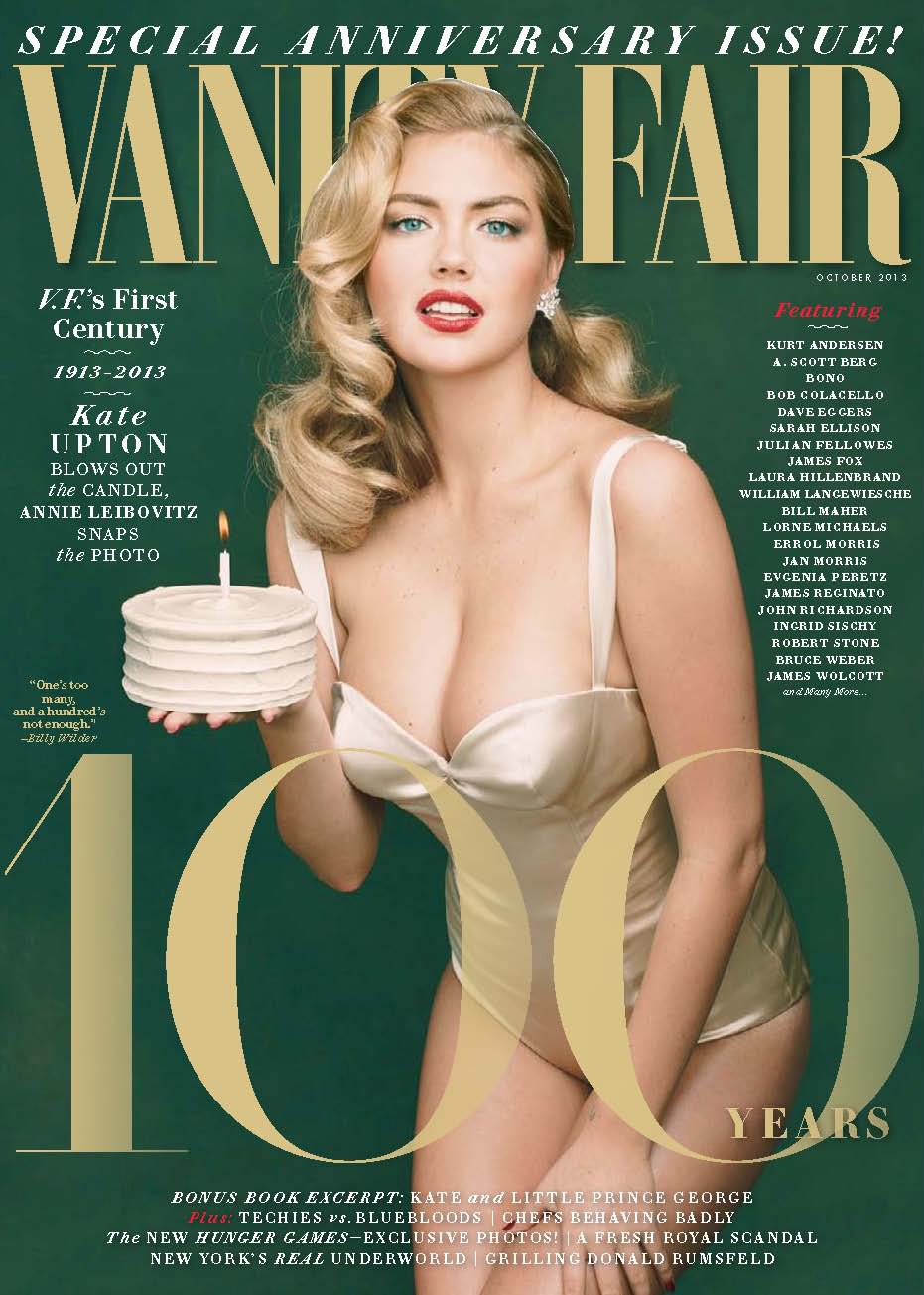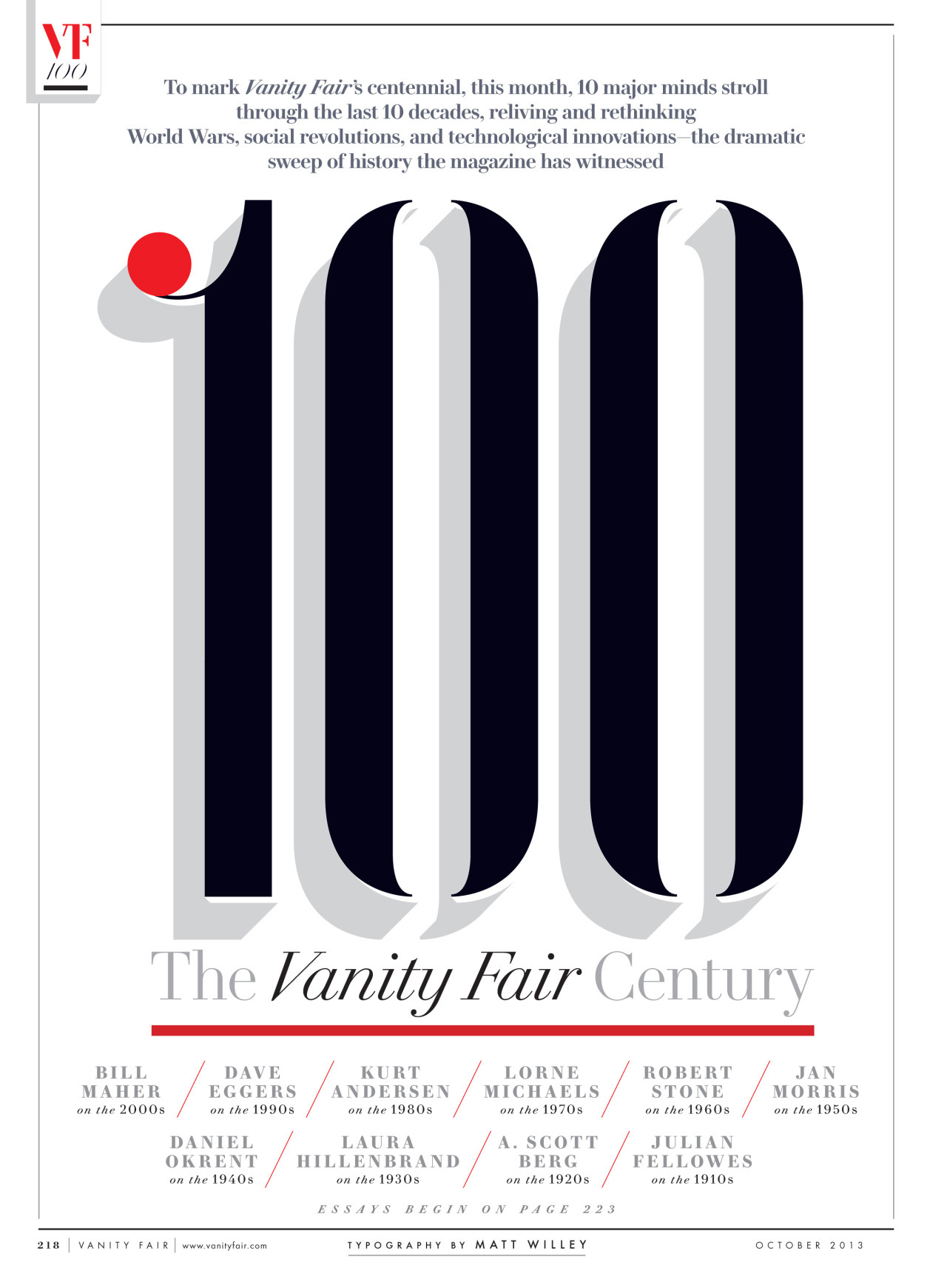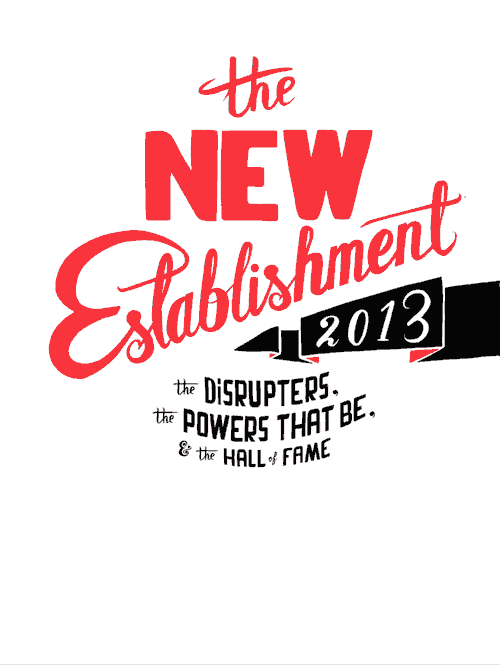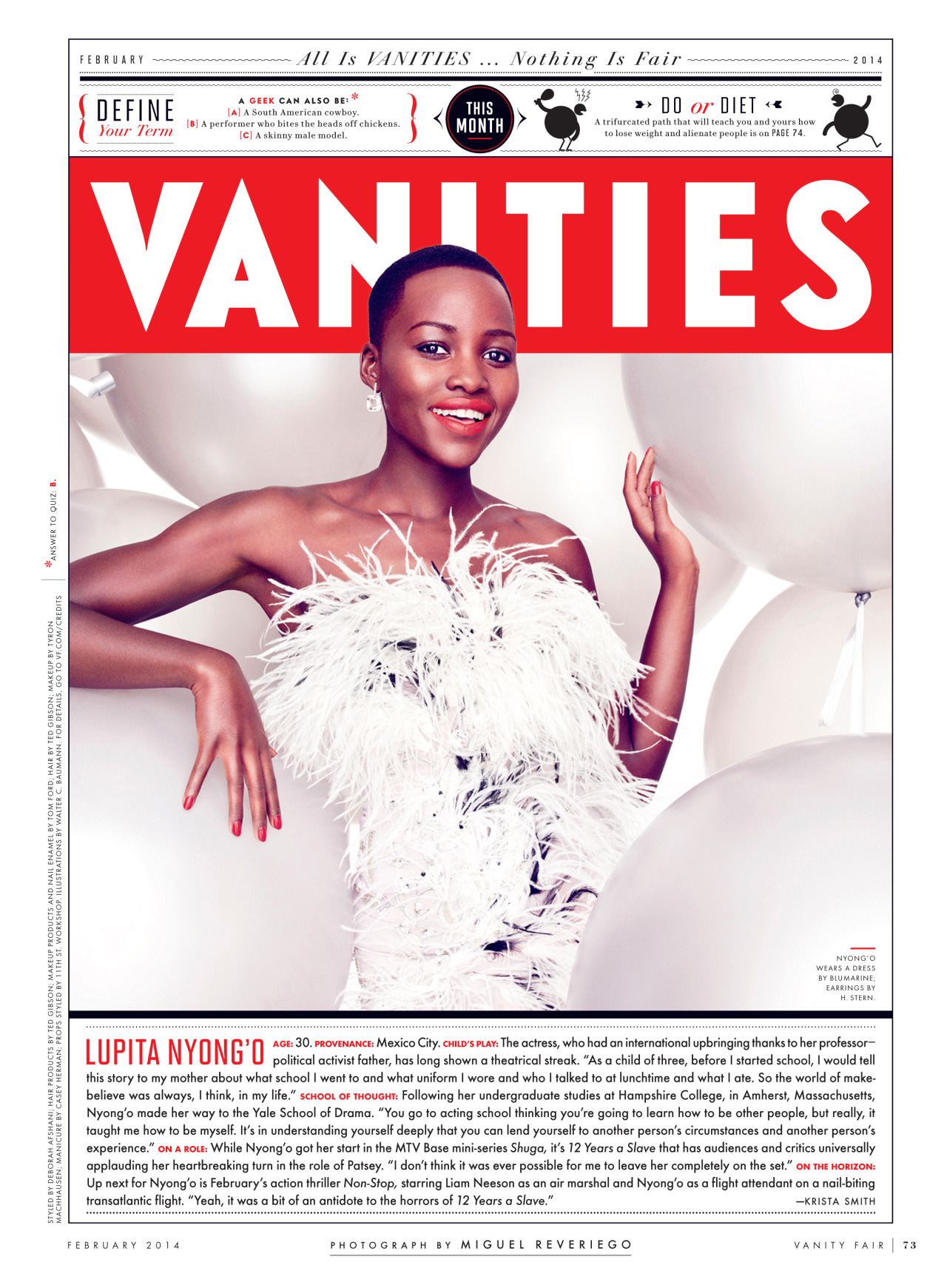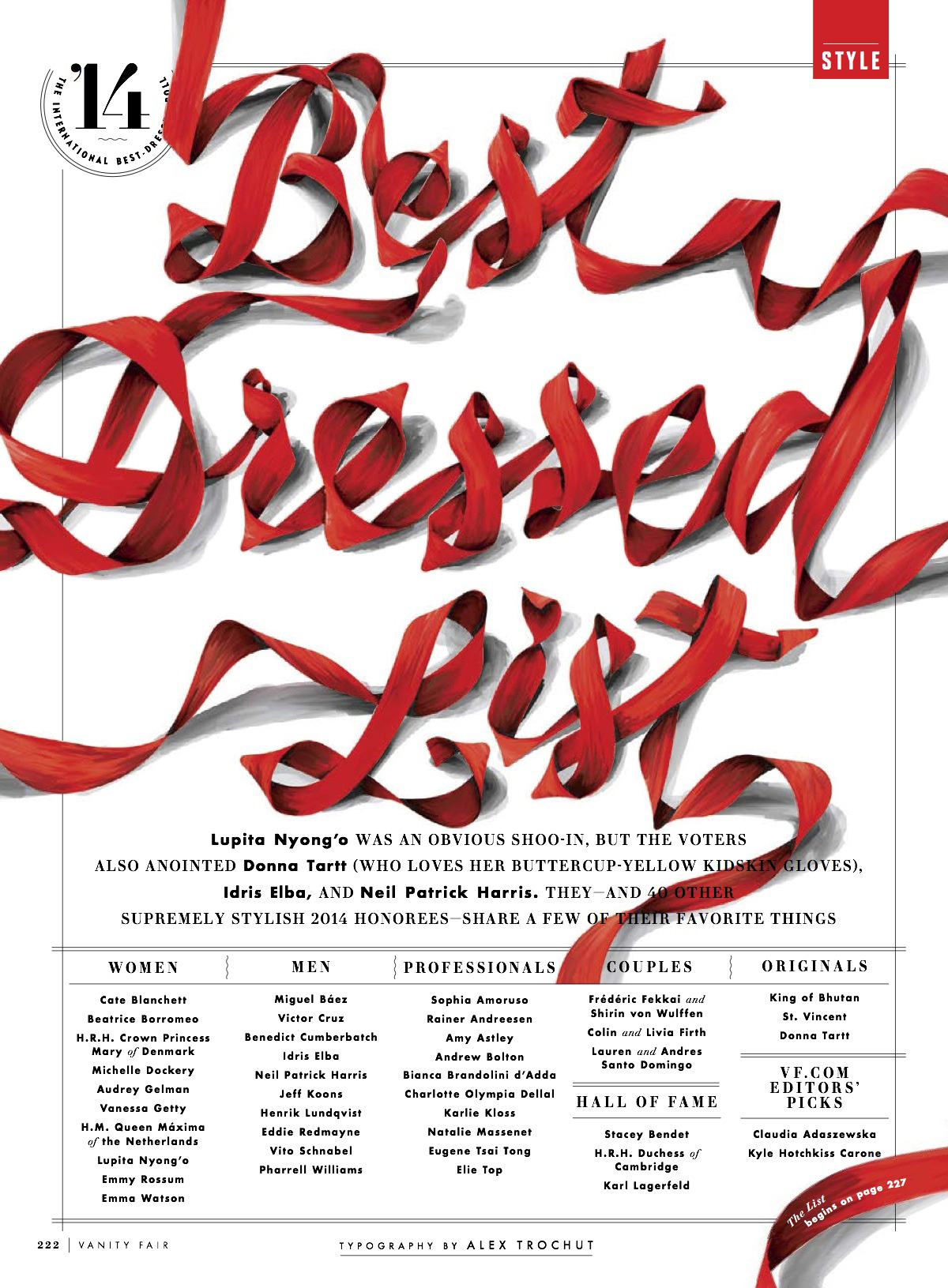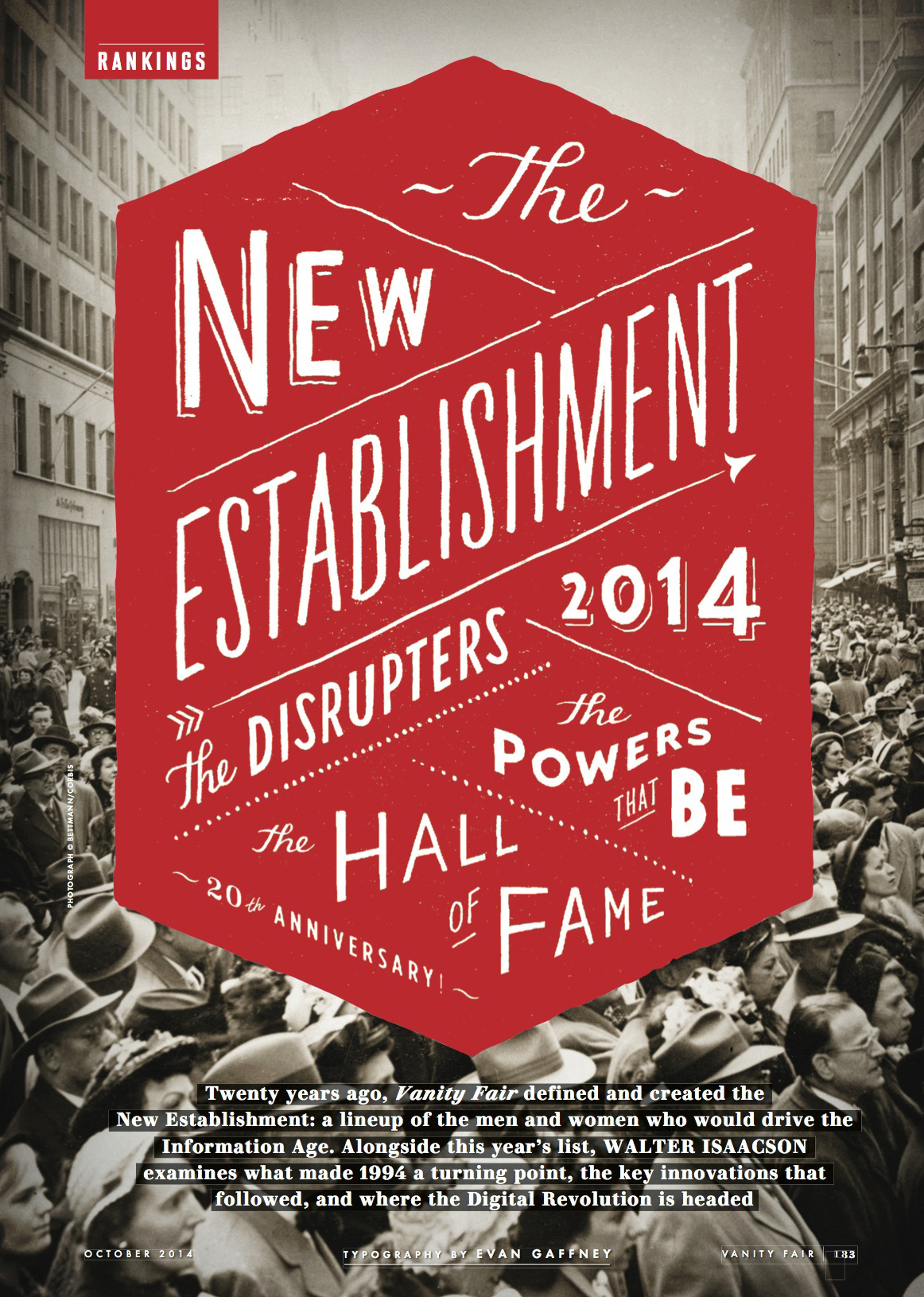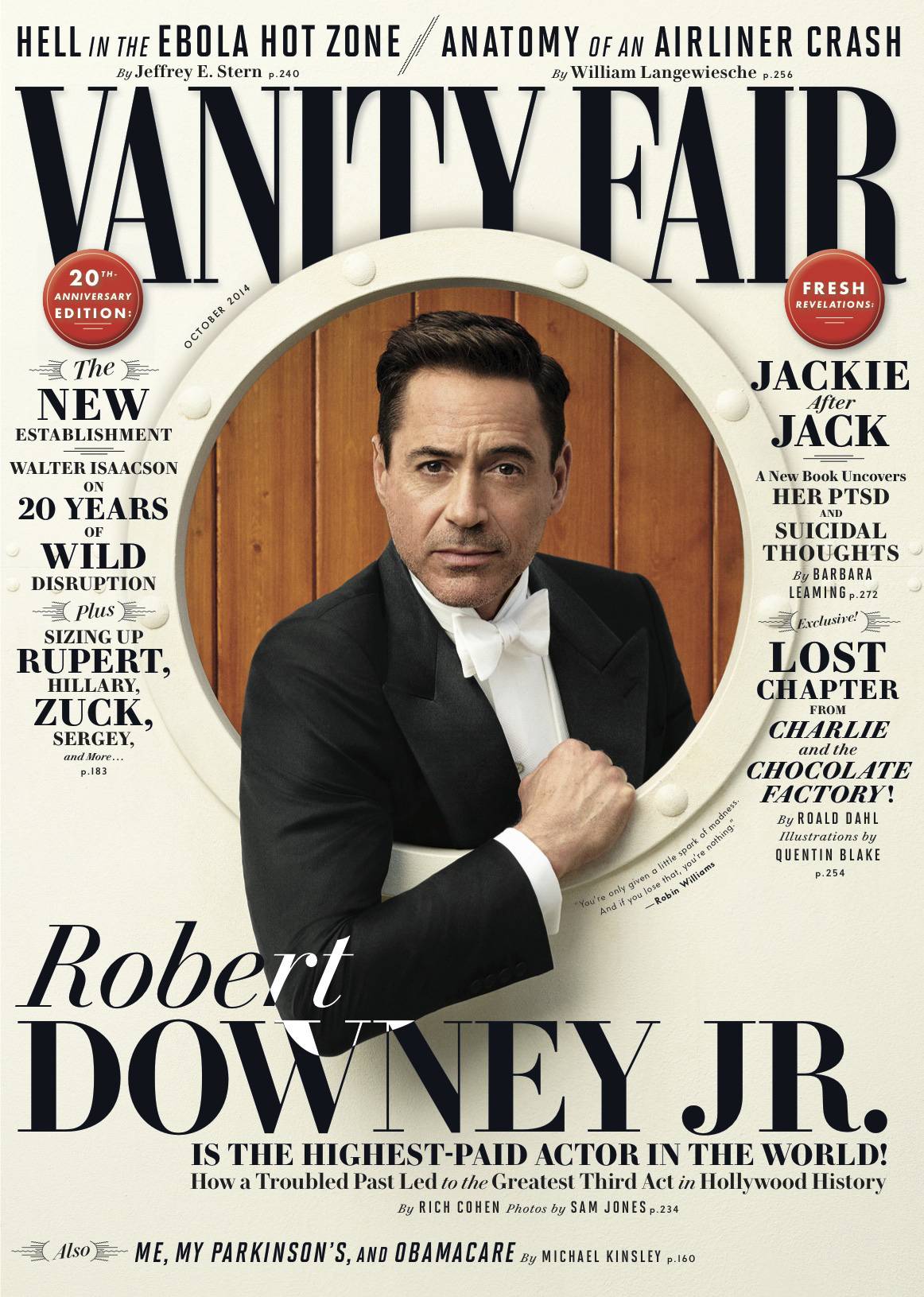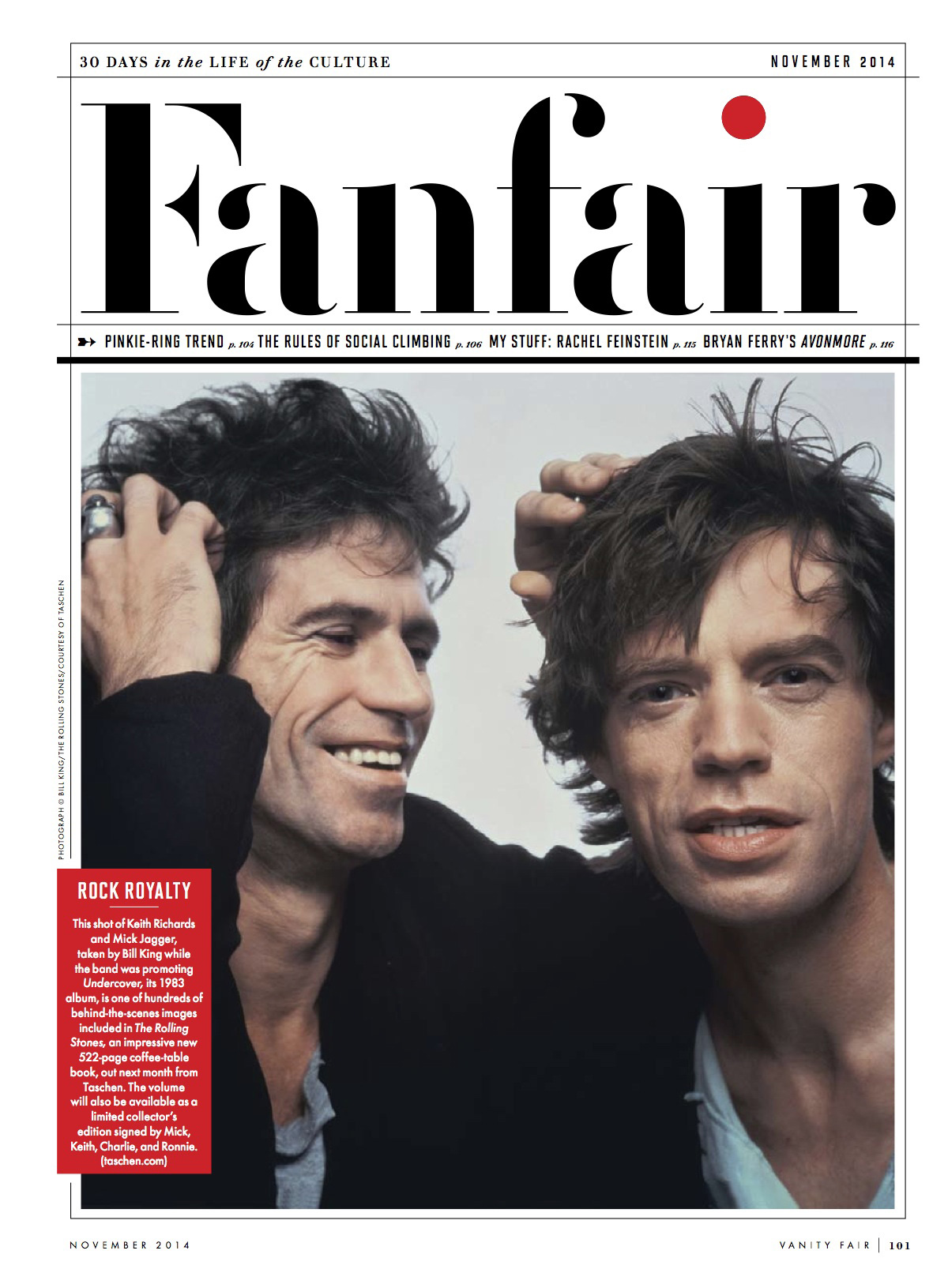
How Chris Dixon became the most iconic designer of his generation
When Chris Dixon arrived at Vanity Fair in 2011 from New York Magazine he began reworking the typography, page design, illustrations, infographics, and photography to evolve the iconic publication section after section, page after page. Having started his collaboration with Christian Schwartz and Paul Barnes of Commercial Type on a six-month process to redesign Vanity Fair’s logo and create a new custom display typeface back in 2012, Dixon approved a fresh interpretation of Didot for the prestigious magazine in 2013.
Born 1967 in Saskatchewan, Canada Dixon studied psychology at the University of Saskatchewan but when he took part-time art and design classes he “discovered what graphic design really was”. Having accepted into Vancouver’s Emily Carr Institute of Art & Design for a three-year program in 1997 it was his graduate project that caught the eye of visiting teacher Kalle Lasn, founder of Adbusters who offered him a job as an art director. This is how it all started.
“I’m typographically led. For me, to solve a problem or make the thing special it’s the typography.”
A graphic designer by heart, Chris Dixon has spent more than 17 years designing at a wide variety of publications and companies, including the Financial Times, the New York Times Magazine, Ogilvy & Mather, as well as eight years at New York magazine where he helped execute of the most highly-regarded magazine redesigns in recent years the Design Director at Vanity Fair since 2011, has evolved the magazine’s overall look with a very contemporary yet classic in its typographic elements refined design with poster-like covers and well-crafted and detailed, but still bold and muscular typography. Here we present you with some quotes of his typographic wisdom for a very compelling adventure in the land of the letter.
“My brother is a film director and I sometimes liken art direction to film directing. They start with a script, basically just words on white paper, and they read it and start to imagine and visualise it. You can do it a thousand different ways – if you take the same script to different directors they’re going to visualise it in very different ways. In editorial design we do a similar thing. You read a manuscript and it’s got a certain mood to it, a certain tone, and we work to communicate that. You can pull out certain words in the headline, or reduce the headline down to one word alongside a photograph and you get a tension between word and image.”
“I’m typographically led. For me, to solve a problem or make the thing special it’s the typography. Vanity Fair didn’t necessarily have that as one of its key strengths, so that’s what I’m mainly trying to do here now. I work on the photography, too, but I think that’s much more successful than other visual parts of the magazine; it’s a great big machine here that works really well. So it’s the typography and the general page design here”.
“Our Didot needed to be versatile. VANITY FAIR is a general interest magazine, and in any given issue you have a huge range of stories, from Hollywood to the civil war in Syria to a profile on Tony Blair. The new typeface had to be flexible enough to work with all those topics. I also wanted a Didot that would play well with other type — some covers get rather involved typographically and we’ll mix VF Didot with Solano, VF Sans, Flama, Futura, and we’re always looking for the perfect script face… Our Didot has weights that feel more journalistic, less delicate. Christian and his team understood the need for versatility, and we ended up with seven distinct sizes, each with multiple weights… It also gives us a huge range to work with, our covers tend to be type-heavy, and the range allows us to keep the covers looking typographically lush”.